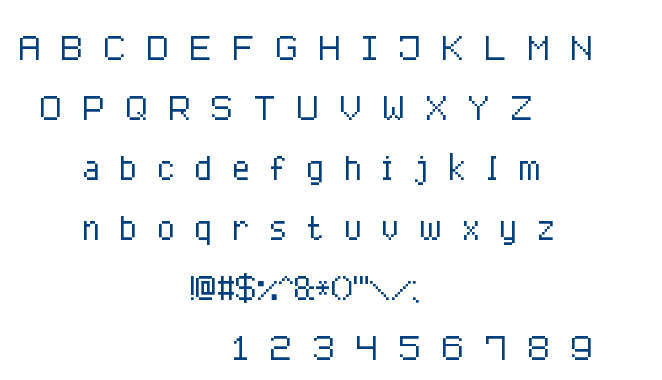
Tiny Small Medium Large Advanced Pixel-7 font Style-7 Website advanced_pixel-7.ttf Download 1552 downloads Free for personal use Category: Basic » Various Original thin and small pixel font. Size of base symbol is 7*9 pixels. Latin and Cyrillic code pages are supported. Character Map specimen sheet